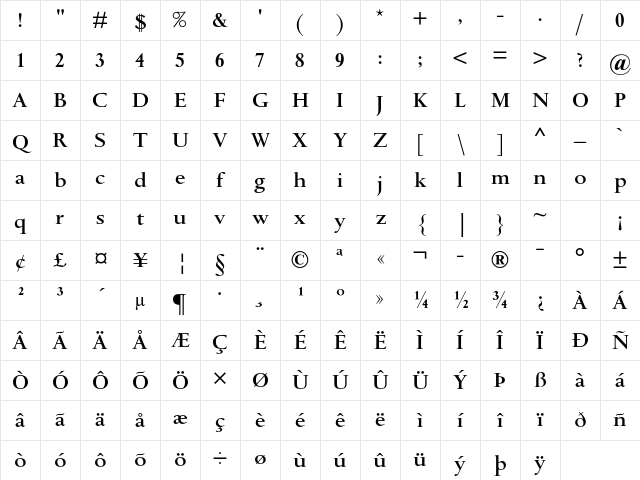
Spectrum MT Std Semibold
Style: Semibold
Designer: Jan van Krimpen
Design Context for Spectrum MT Std
Spectrum MT Std is a composed and adaptable typeface that performs quietly and consistently across a wide range of design contexts. Its bold stroke weight gives it real presence on the page.